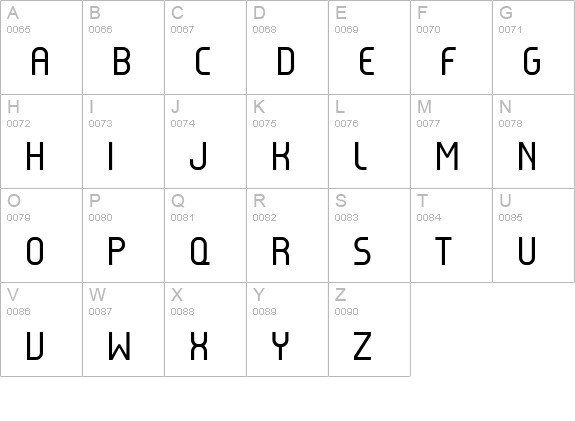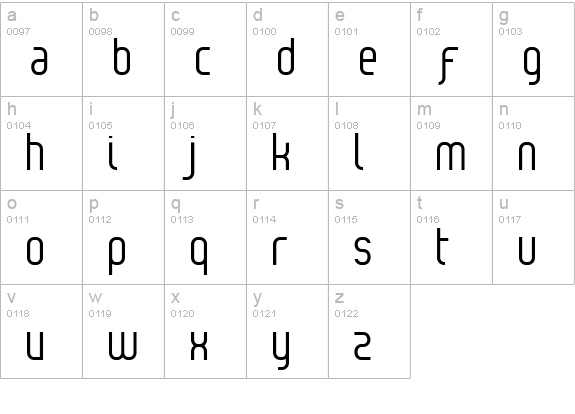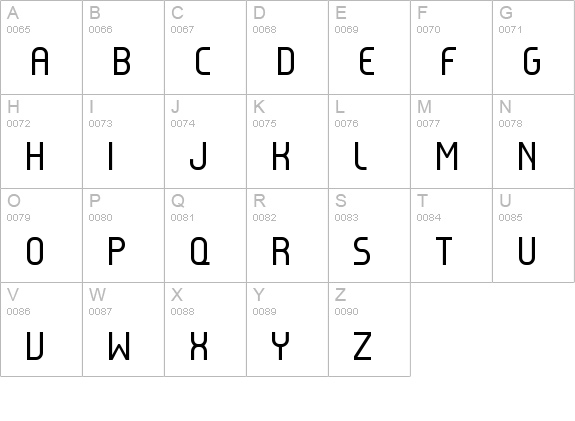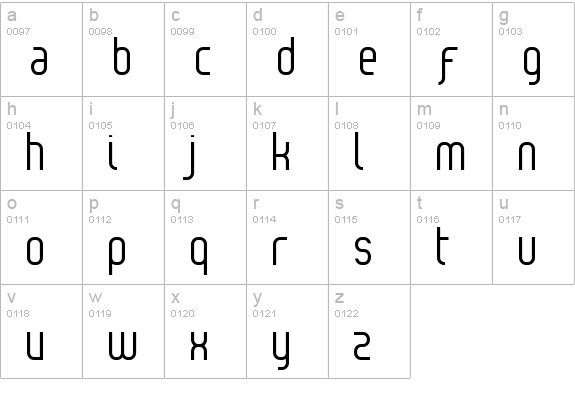
Reflex font is a stunning typeface that captures attention with its bold and sleek design. It exudes a sense of modernity and sophistication, making it the perfect choice for a wide range of creative projects. This font is meticulously crafted, ensuring each character is impeccably balanced and visually striking. What sets Reflex font apart is that it is not only visually appealing, but it is also available for free. Yes, you read that right! This extraordinary font can be freely downloaded at FontsMarket.com, giving you the opportunity to add a touch of elegance to your designs without breaking the bank. Designed with versatility in mind, Reflex font seamlessly adapts to various design styles. Whether you're working on a logo, branding materials, website, or any other creative project, this font will effortlessly elevate your work to new heights. The clean lines and sharp edges of Reflex font make it incredibly easy to read, ensuring that your message is conveyed with clarity and impact. Its generous spacing and impeccable kerning further enhance legibility, making this font a reliable choice for both print and digital applications. With Reflex font, you have the freedom to express your creativity without limitations. Its extensive character set supports multiple languages, allowing you to reach a global audience with ease. Additionally, the variety of weights and styles available within this font family gives you the flexibility to experiment and create unique combinations that perfectly suit your design vision. So why wait? Unlock the power of Reflex font and bring your designs to life. Download it for free today at FontsMarket.com and embark on a journey of limitless possibilities. Whether you're a professional designer or a passionate hobbyist, Reflex font will surely become an invaluable asset in your typography toolbox.